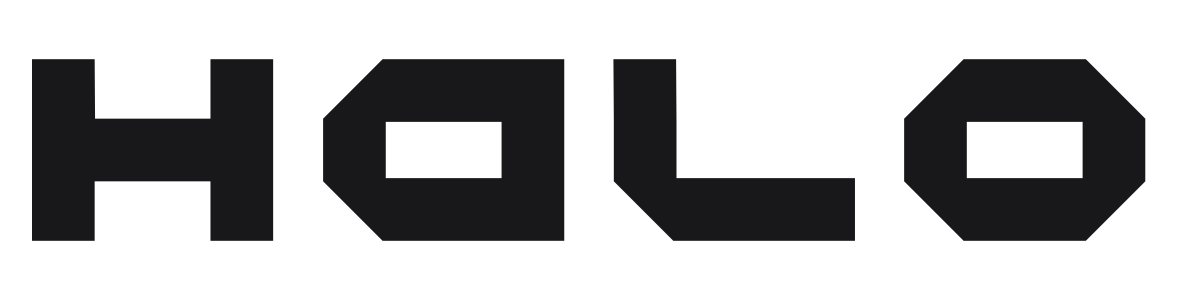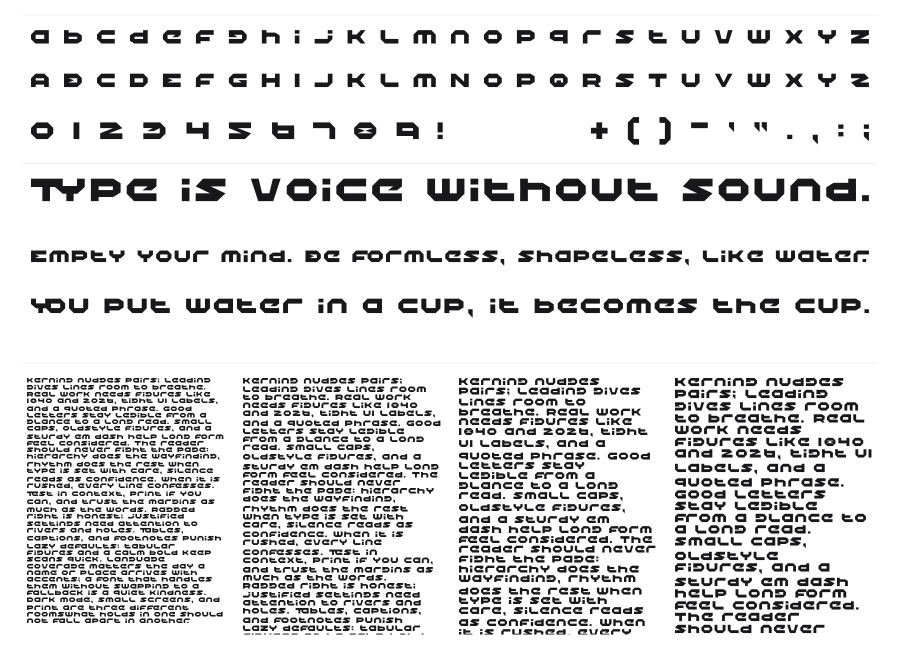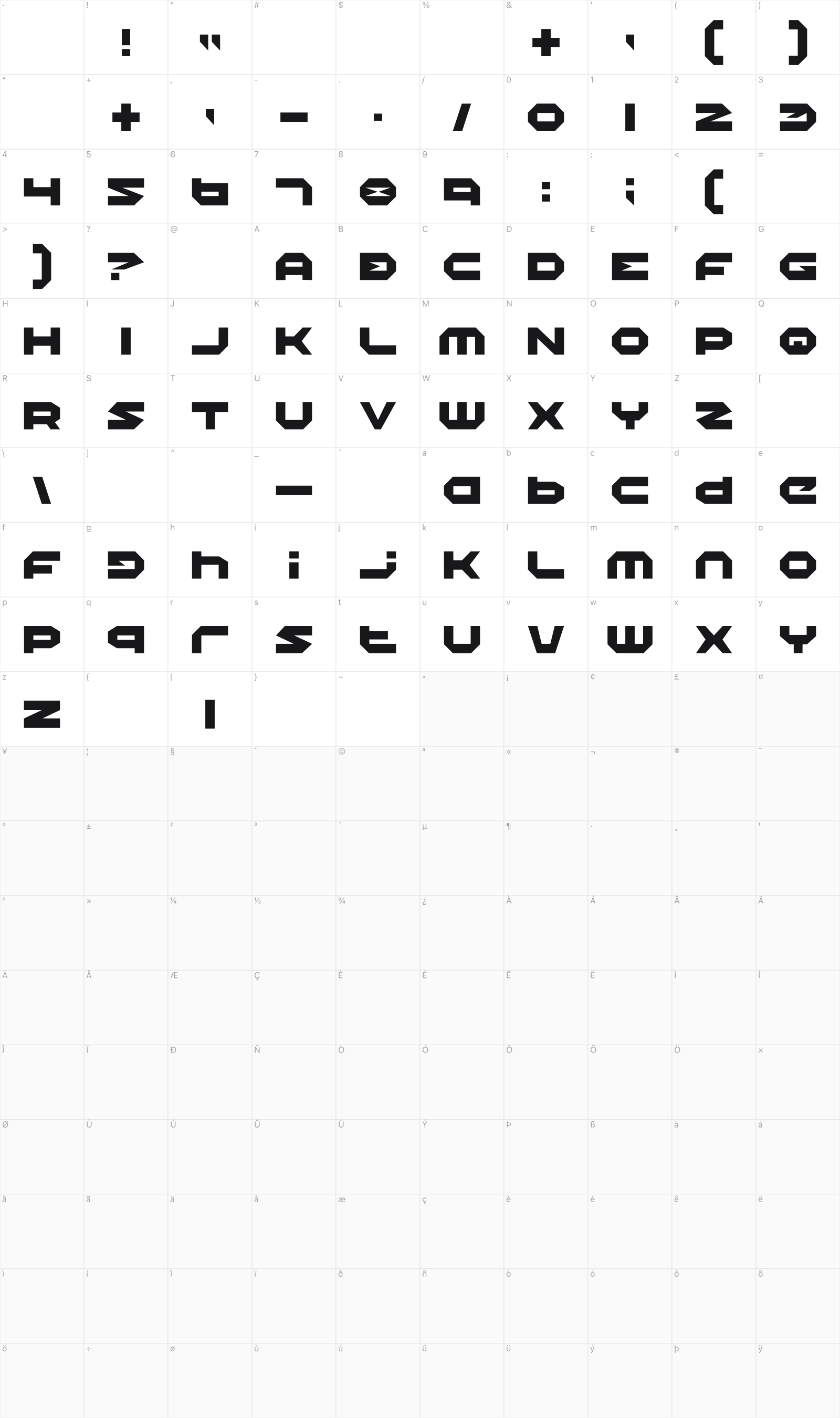
Halo
Halo is a heavy square techno font by Iconian Fonts, built from angular cuts and straight edges with almost no curves in sight. Every character feels like it was machined rather than drawn, with notched terminals and hard right-angle counters that give it a commanding mechanical presence. It reads instantly as sci-fi or military, which makes it a natural pick for game titles, movie logos, and anything that needs to feel like the future.